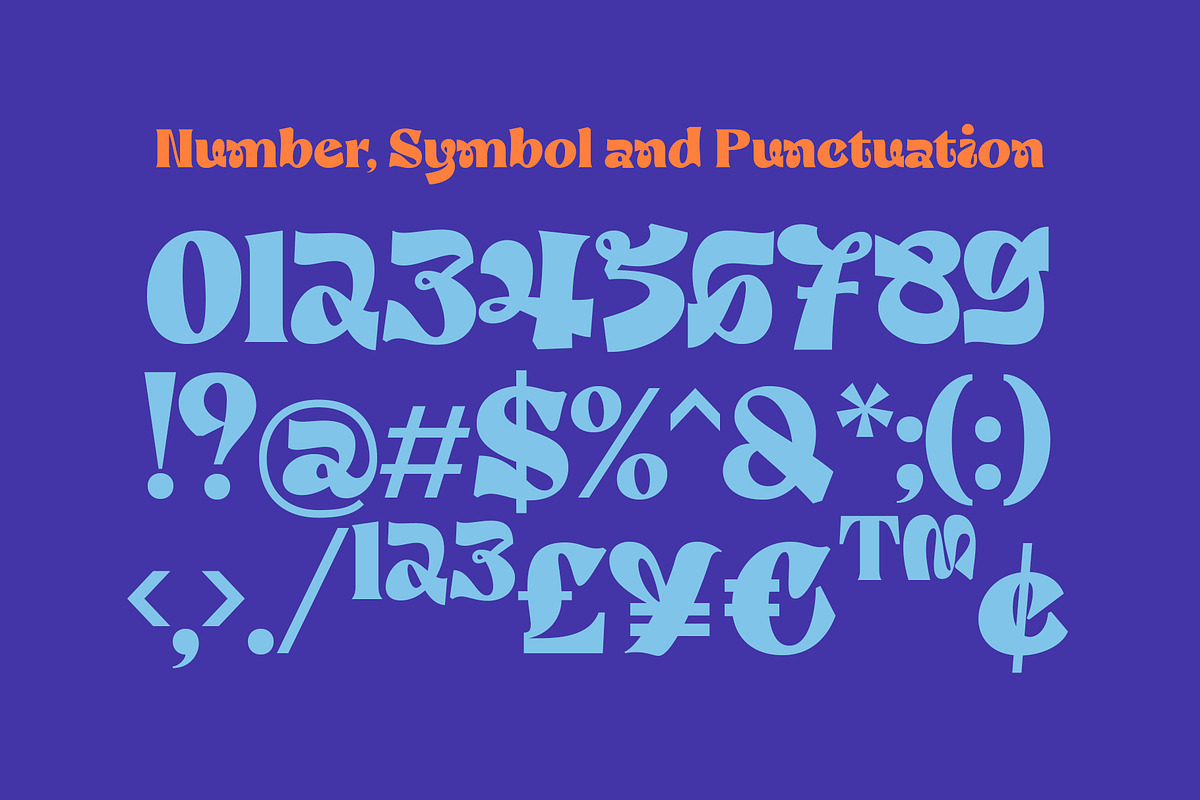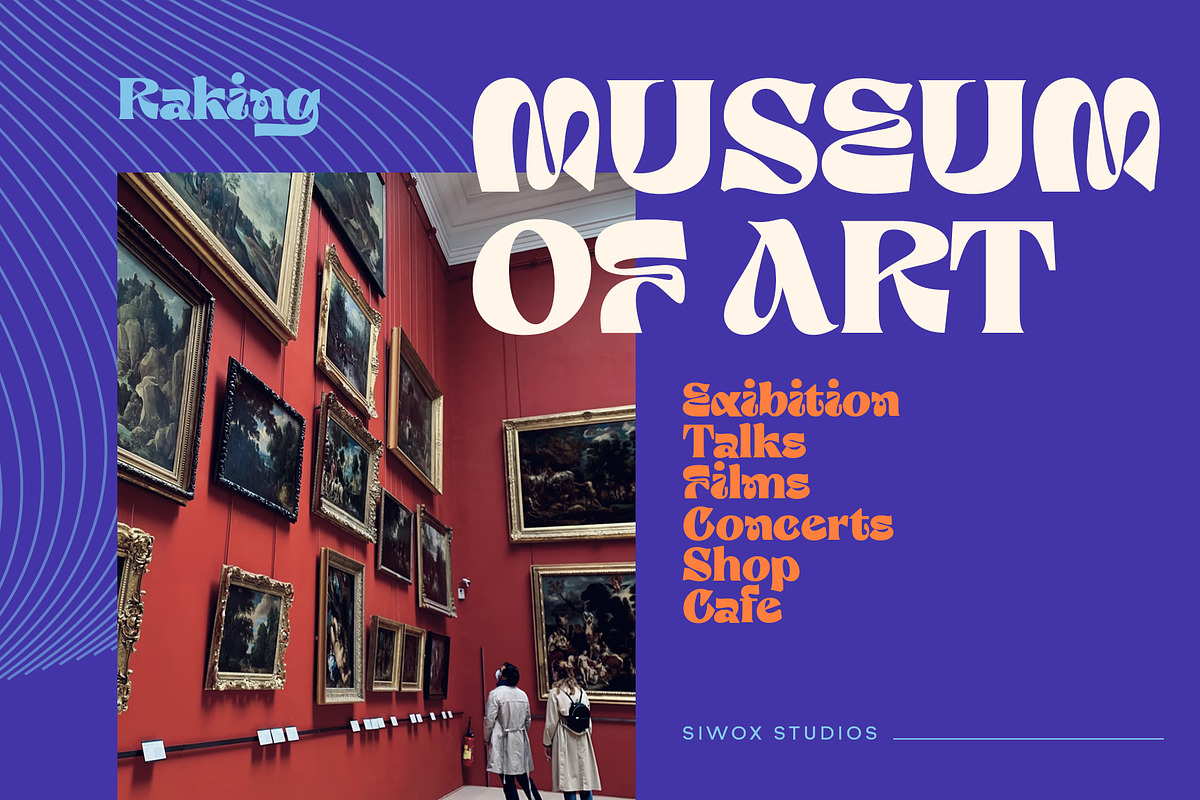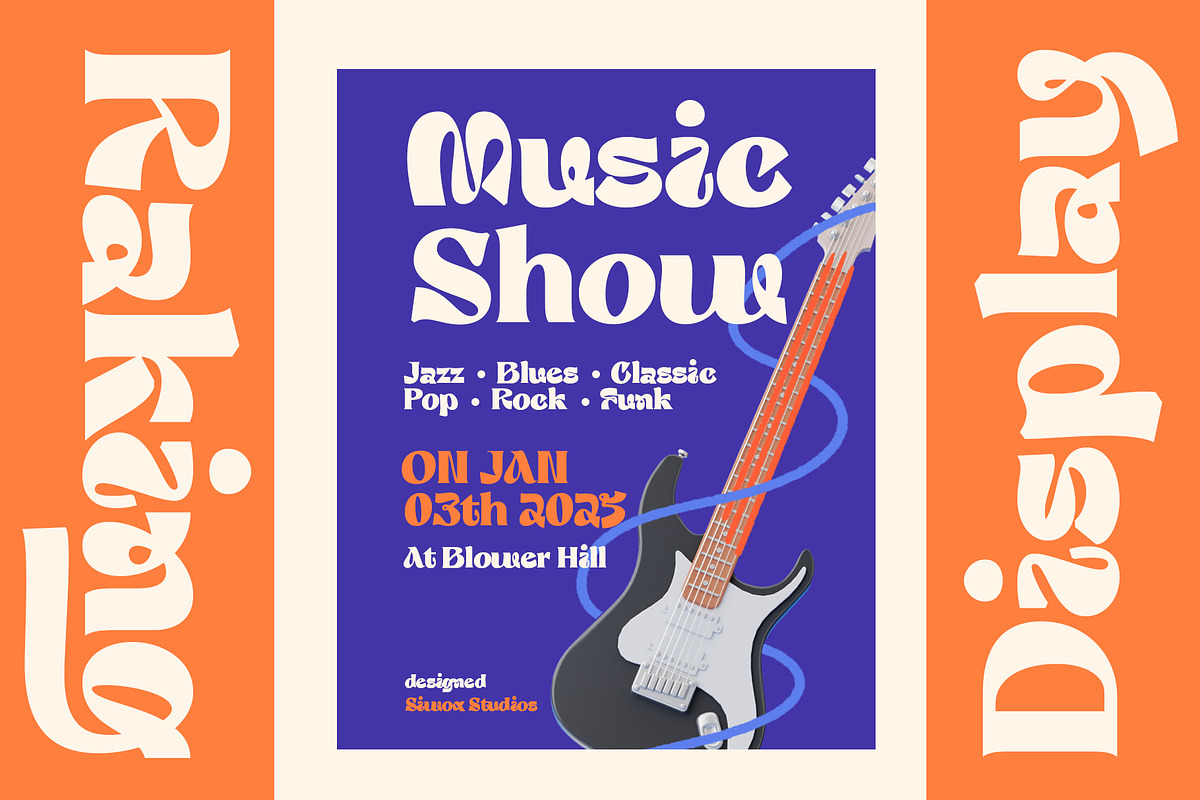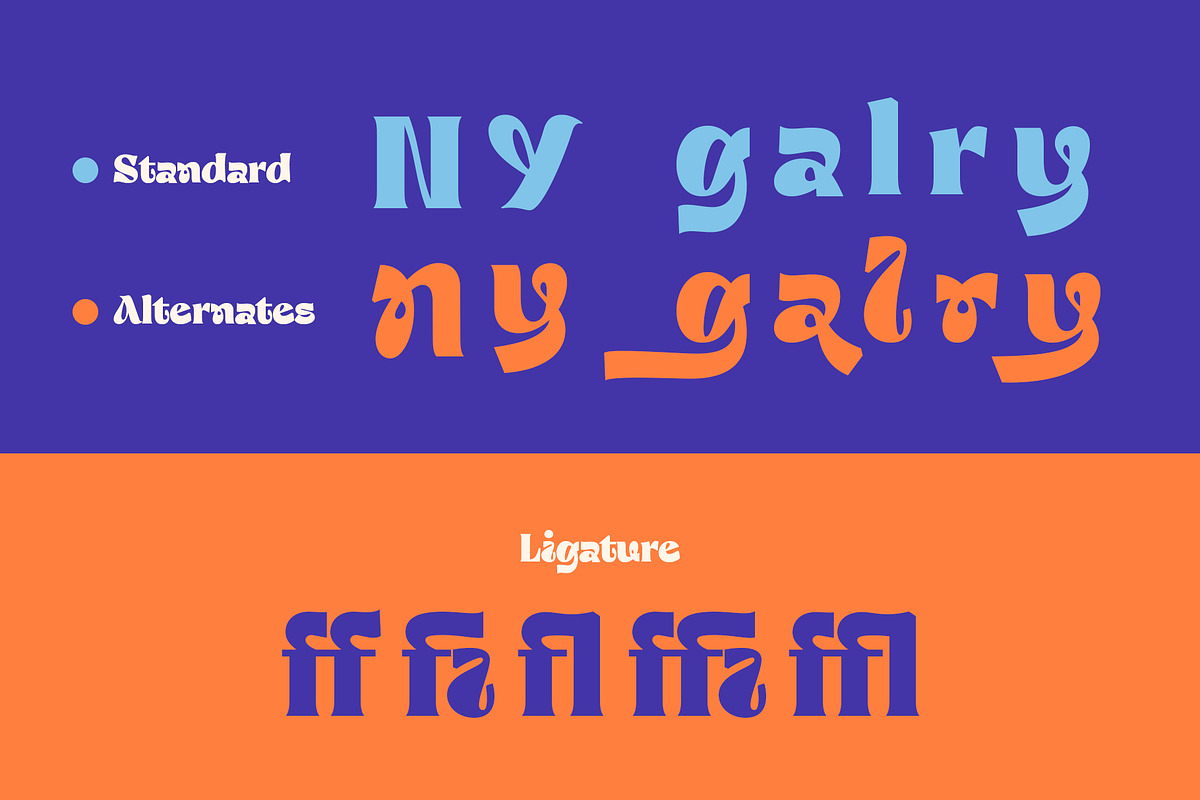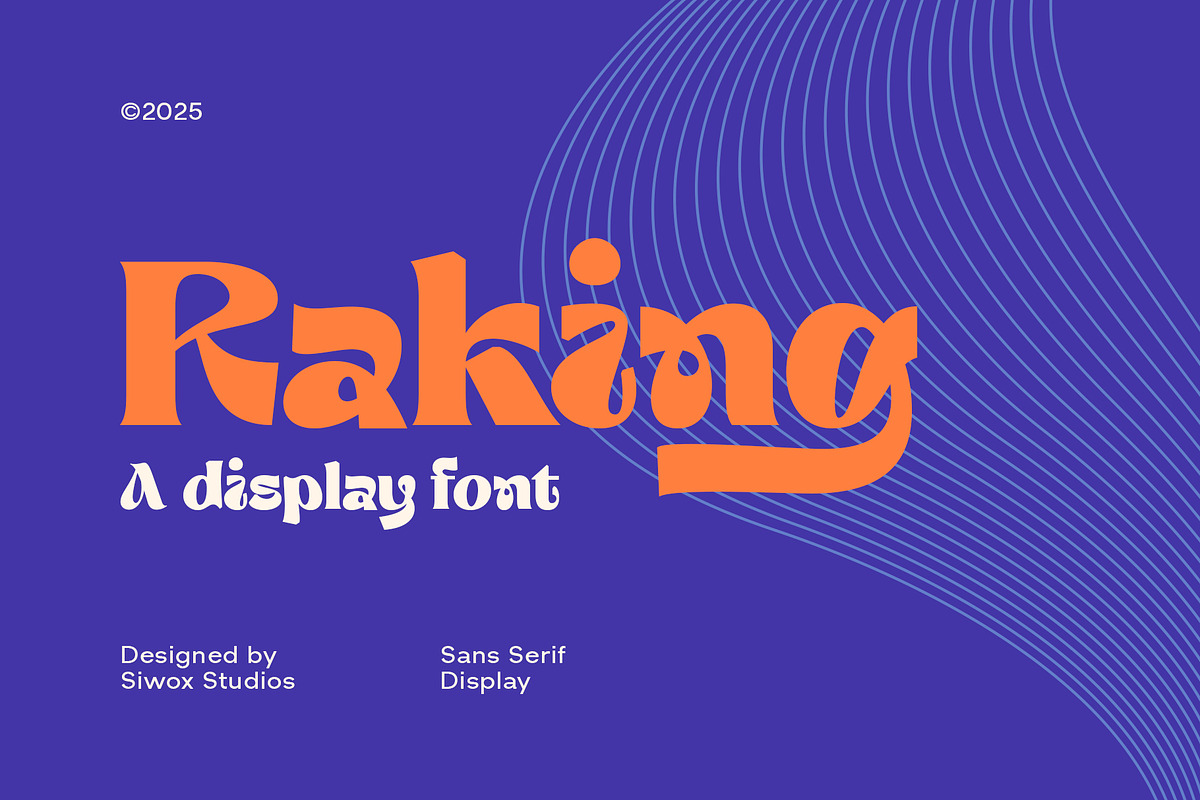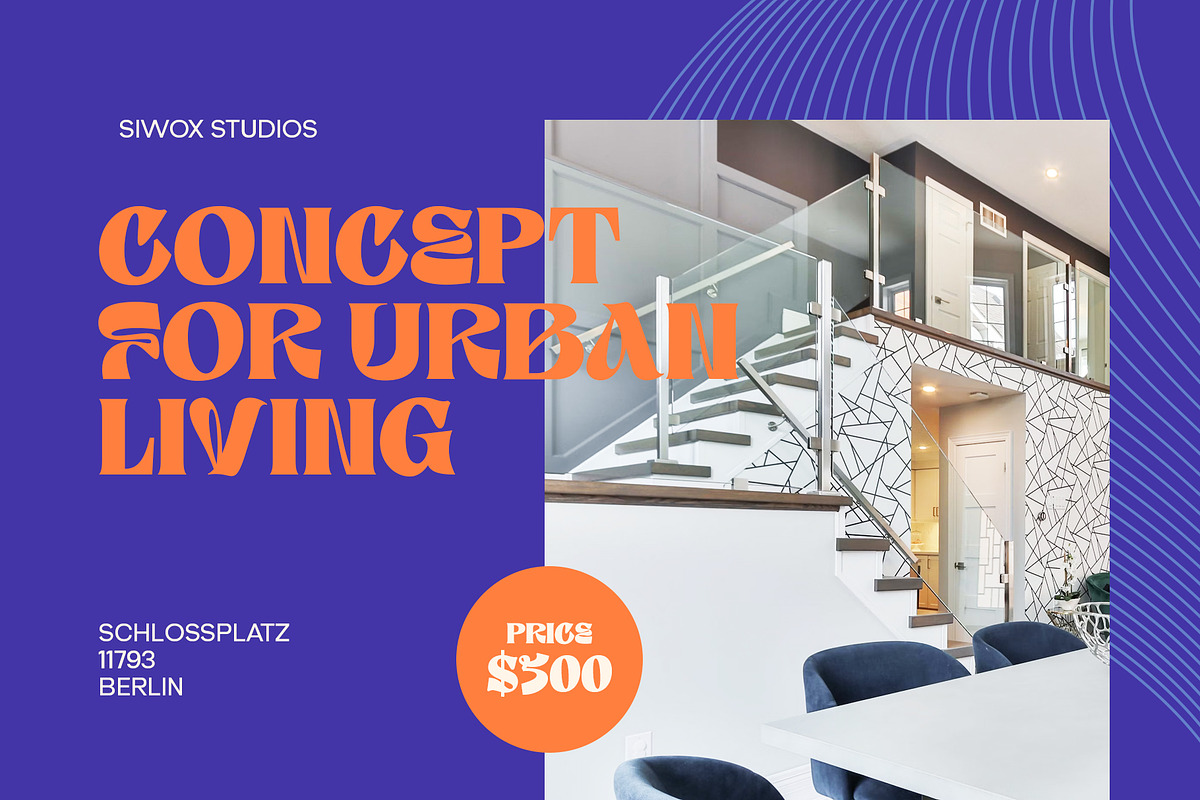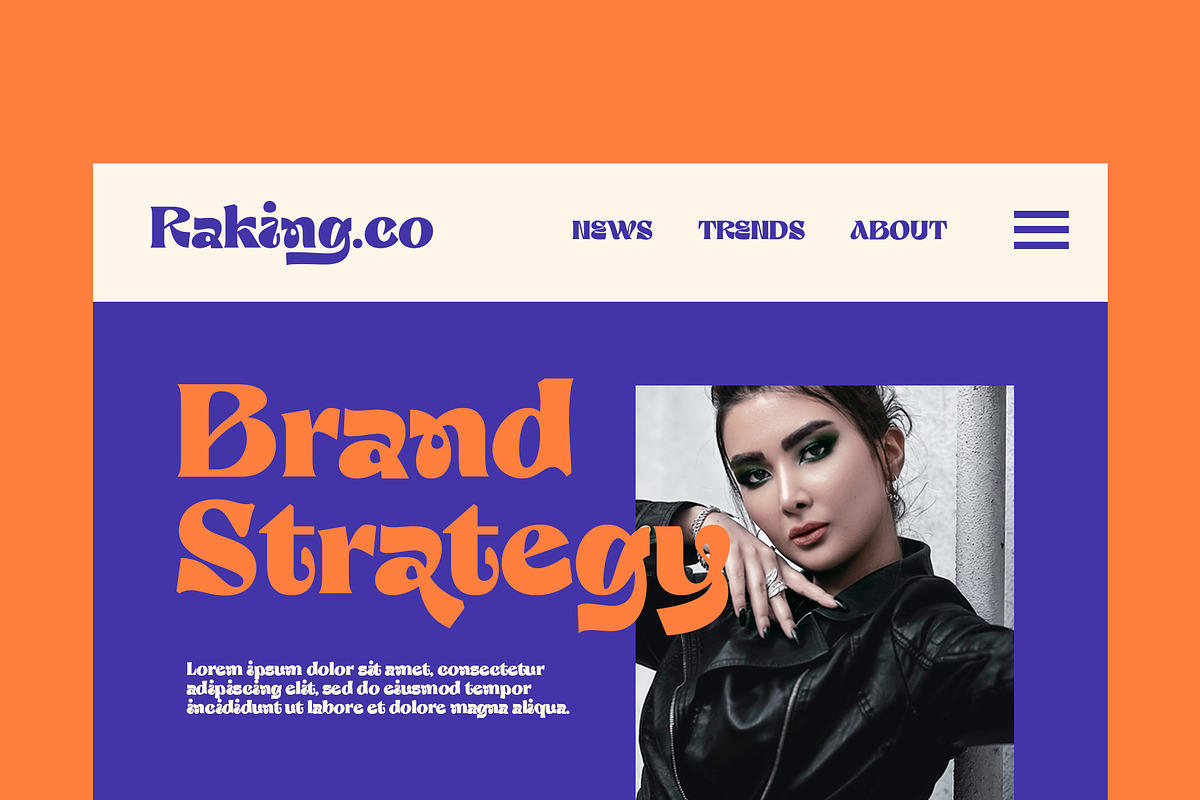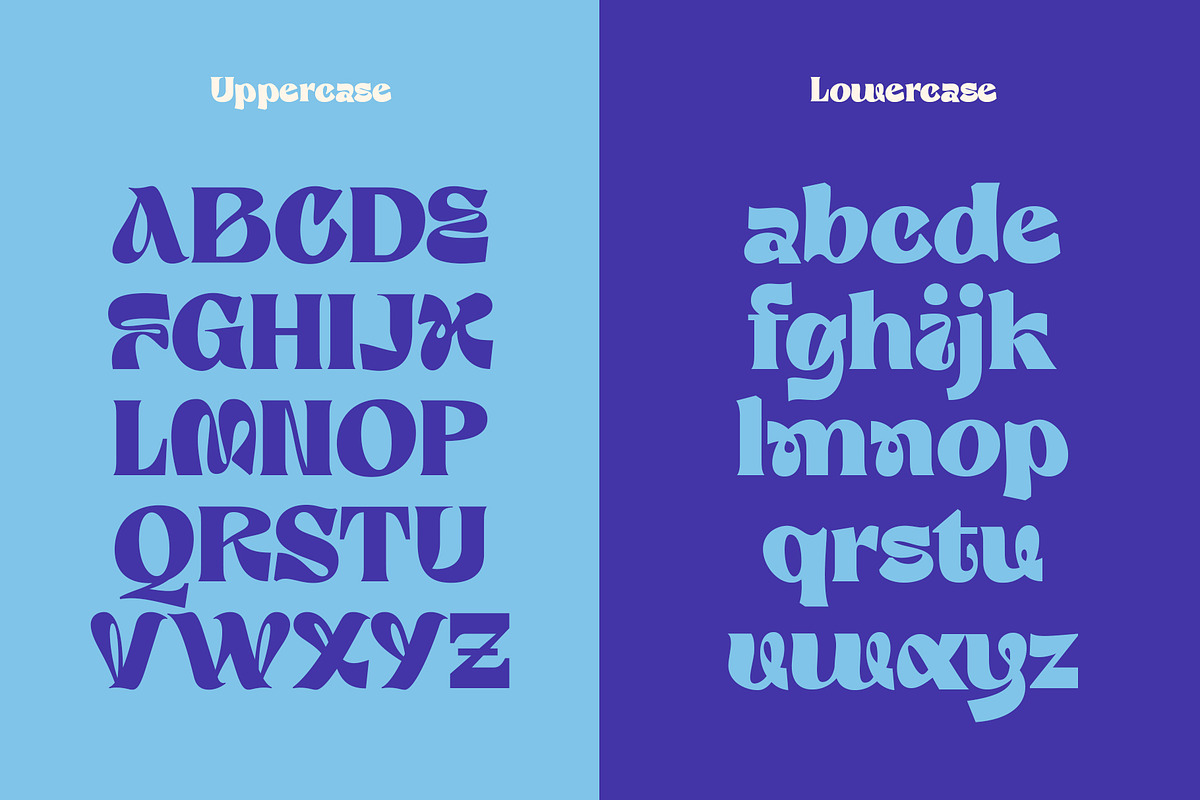
Raking - Bold Display Font
Raking Font is a bold and elegant display font equipped with Alternate and Ligature that is suitable for branding, posters, logos, and advertisements. This font ensures that the message conveyed through the text remains easy to read and understand.